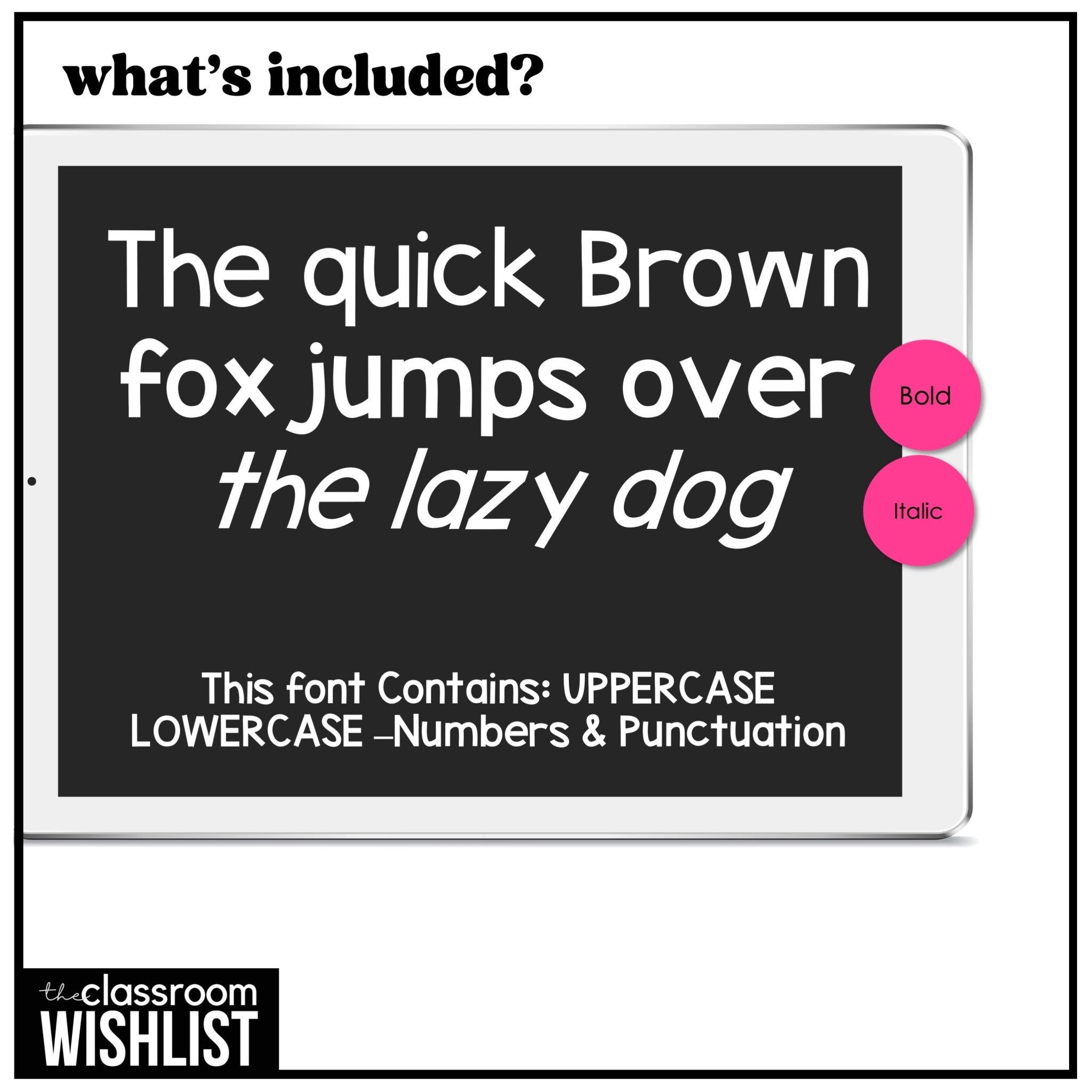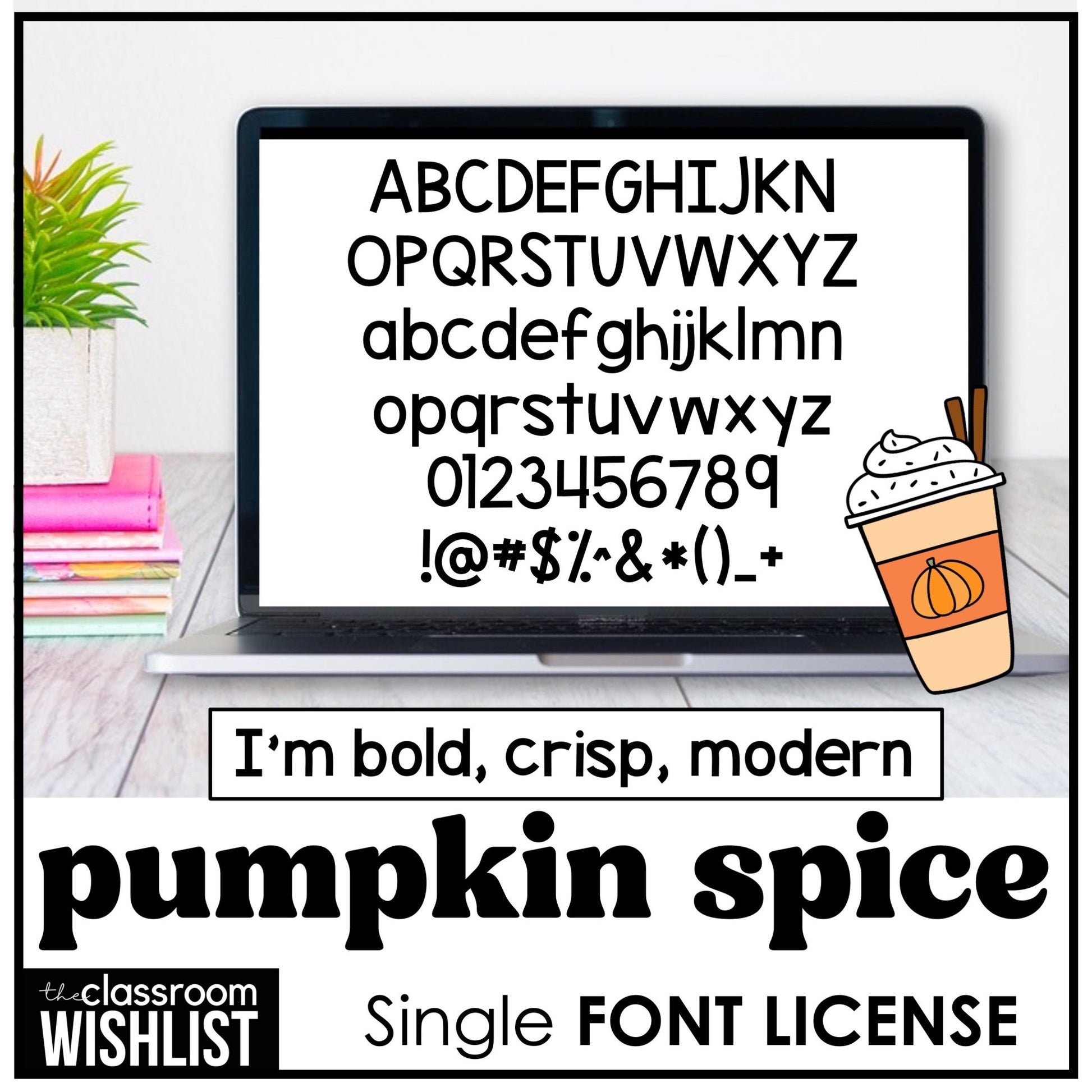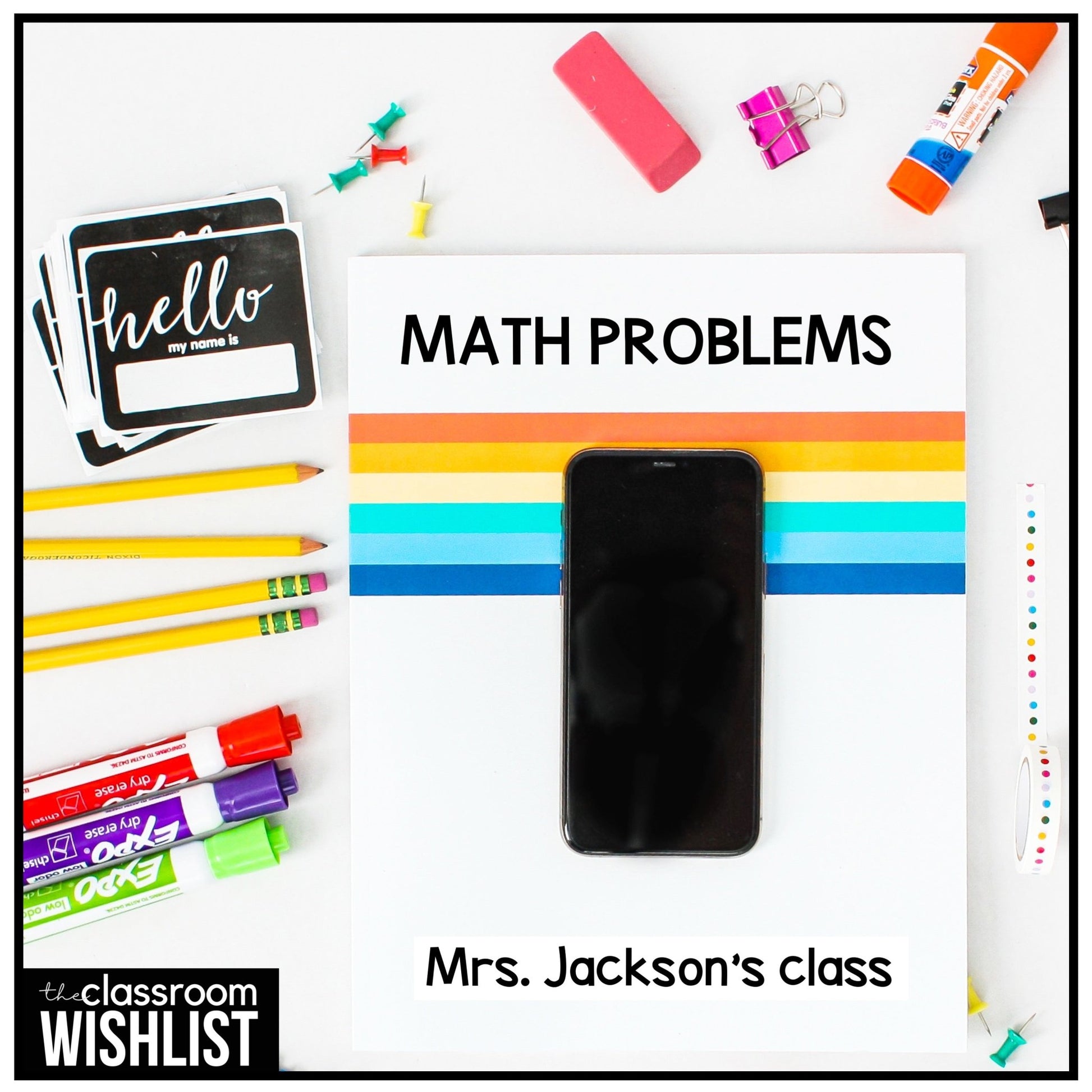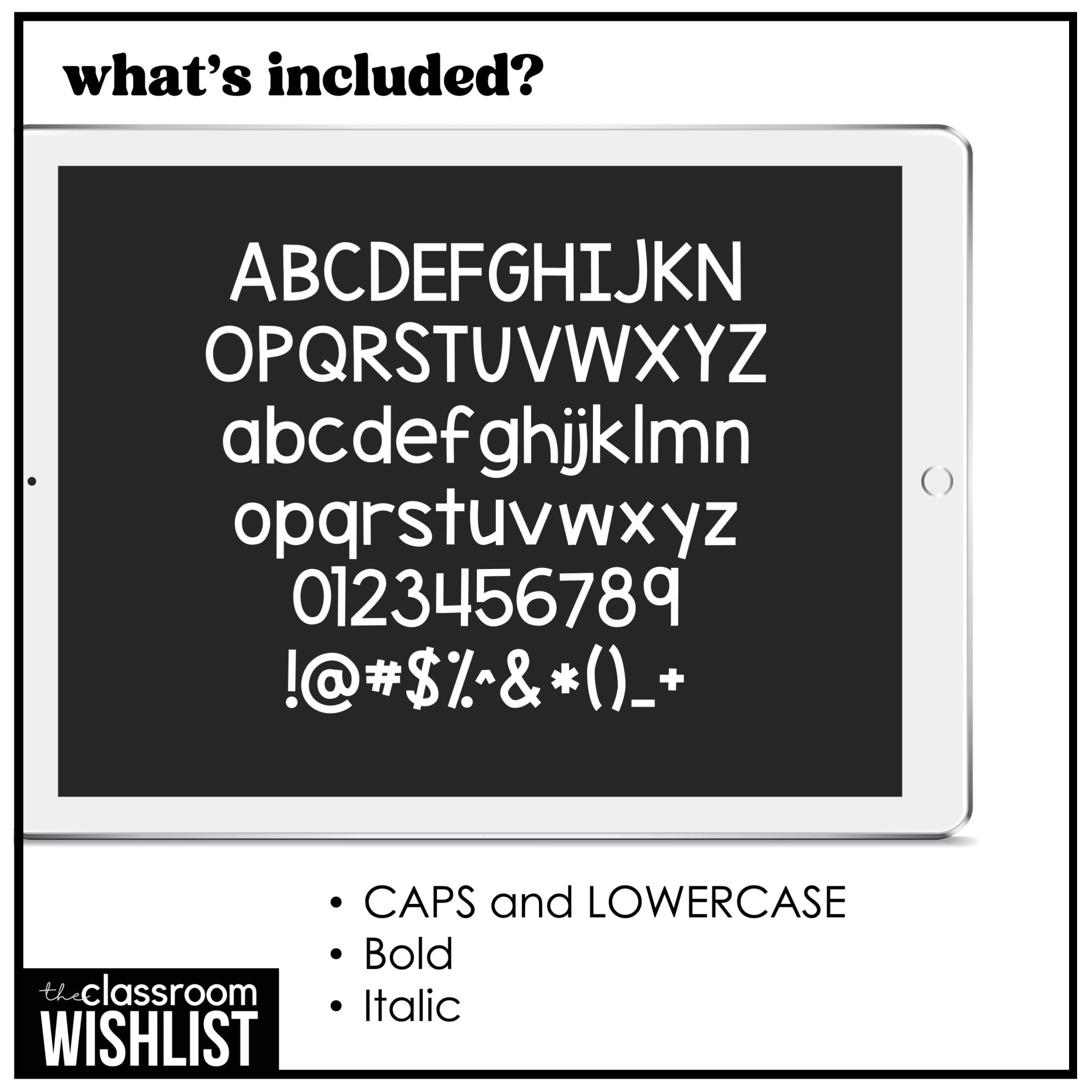
Give your resources a bold, modern look with the Pumpkin Spice Font! Designed to be crisp, clear, and easy to read, this handwritten-style font is perfect for classroom decor, worksheets, titles, bulletin boards, and digital resources. Its simple yet eye-catching style makes it ideal for both teachers and content creators looking for a versatile, professional font.
- Complete set of uppercase & lowercase letters
- Numbers and punctuation included